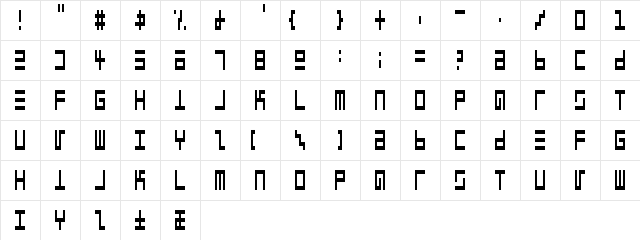
EppsEvans Narrow
Design Context for EppsEvans Typeface
EppsEvans takes a measured approach to typography — its balanced proportions and neutral character make it a reliable workhorse for both digital and print work. Its narrow stance lets it pack a punch even in space-constrained designs.